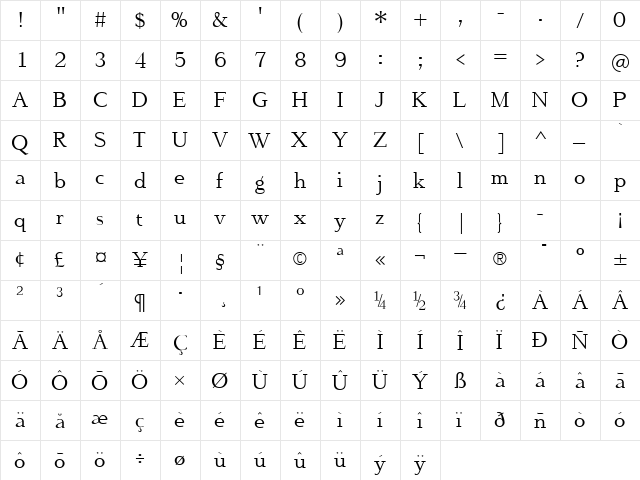
FlyHigh Regular
Design Context for FlyHigh Typeface
FlyHigh offers clean, dependable letterforms without strong stylistic allegiance, making it a practical choice for designers who need flexibility.
Pro Tip: Pair FlyHigh with a font of contrasting weight or personality to build a more expressive typographic hierarchy.